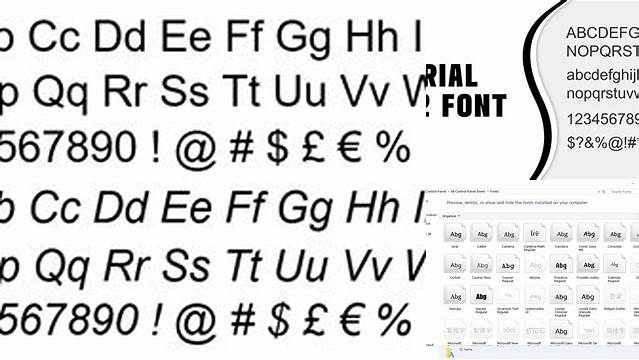
Arial TTF Fonts On Windows: A Complete Guide
Hey guys, ever wondered about the Arial TTF fonts you see on your Windows system? Well, you're in the right place! In this article, we're diving deep into everything Arial, from its origins and technical aspects to how you can manage it on your computer. If you're a designer, a writer, or just someone who enjoys a good-looking document, understanding fonts like Arial is super important. We'll break down what makes Arial tick, how it's used, and some tips and tricks for working with it. Let's get started, shall we?
What is Arial TTF?
So, what exactly is Arial TTF? Arial is a sans-serif typeface, which basically means it doesn't have those little decorative strokes (serifs) at the end of each letter. It's designed to be clean, modern, and easy to read, making it super popular for both digital and print media. The "TTF" part stands for TrueType Font, a type of font format developed by Apple and Microsoft. TrueType fonts are scalable, meaning they can be resized to any size without losing quality. This is a huge advantage, ensuring that Arial TTF looks crisp and clear whether it's tiny text on a website or large headlines in a poster. The font was originally designed by Robin Nicholas and Patricia Saunders and released by Monotype in 1982. Arial was conceived as a commercial alternative to the popular Helvetica font, aiming to provide a similar aesthetic but without the licensing fees. Because of its widespread use, Arial has become a ubiquitous font, you'll find it on pretty much every computer running Windows, making it a go-to choice for many. The design is often praised for its neutrality and readability, and it's a common font choice for body text, headings, and user interfaces alike. In the digital realm, Arial TTF plays a critical role in how we interact with information. It ensures that text is displayed consistently across different devices and operating systems, something that is crucial for web design, document creation, and even software development. With its balanced and unobtrusive design, Arial can be used effectively to highlight content without overshadowing its message. The versatility of Arial extends to its use across a diverse array of mediums, including but not limited to; presentations, brochures, and digital advertisements, making it a solid choice for all types of creative projects. Moreover, Arial TTF is a core component of the Windows operating system, as it is used for rendering the user interface and displaying text in various applications, meaning it is essential to the overall user experience. Its universality helps to create a sense of consistency across different applications, which is essential for ease of use. And with its timeless design and unwavering popularity, it shows no signs of disappearing anytime soon.
- Web Design: In web design, you can specify Arial in your CSS to use it for text on a webpage. You can use the font-family property to declare Arial. For example,
font-family: Arial, sans-serif;This ensures that if Arial isn't available on the user's system, a sans-serif font is used as a fallback. This is important to ensure that your website looks good on all devices. The font family gives web designers a great amount of control over typography.
No matter the application, you just need to find the font selection tool, select Arial, and start typing! Keep in mind that the exact location of the font selection tool may vary slightly depending on the software you're using. Practice makes perfect, so experiment with different styles and sizes to see what works best for your project.
Benefits and Drawbacks of Using Arial TTF
Like any font, Arial TTF has its pros and cons. Here's a rundown to help you decide when to use it and when to look for alternatives:
Benefits:
- Readability: Arial is known for its excellent readability, making it ideal for both print and digital use. Its clear and simple design ensures that text is easy to read, even at smaller sizes. This is a key factor in ensuring that your message is clearly conveyed to the audience.
- Universality: It's a standard font on Windows, which means it's available on nearly every computer. This ensures that your documents will look the same across different systems. This is great for collaborations and sharing documents. Its wide availability makes it a safe and reliable choice for widespread use.
- Versatility: Arial is versatile and can be used in various contexts, from body text to headlines. Its neutral design makes it suitable for a wide range of projects, allowing it to seamlessly integrate into diverse design concepts.
- Familiarity: Most people are already familiar with Arial, making it a safe choice for any kind of content. It is often considered a safe choice because its widespread recognition helps to avoid any confusion among readers.
Drawbacks:
- Lack of Originality: Because it is so commonly used, Arial can appear generic and lack personality. This makes it not the best choice if you are looking for a font that will make your project stand out. In some contexts, using a more unique font might be the better option to capture the audience's attention.
- Comparison to Helvetica: Arial was designed to mimic Helvetica, so it lacks the subtle nuances of the original. For designers and typographers, the differences can be noticeable, and Helvetica might be a better choice if you are looking for the original. Although they may seem similar at first glance, true font enthusiasts can easily recognize these subtle distinctions, making a difference in certain design projects.
- Overuse: Overusing Arial can lead to a boring look, so it's important to use it judiciously. If you're aiming for a design that pops, using Arial might not be the best option, especially if you're seeking to create something distinctive.
Tips for Working with Arial TTF
Here are a few tips to get the most out of Arial TTF:
- Pairing: Pair Arial with other fonts to create a balanced design. Consider using a different font for headlines to add contrast. Make sure the font pairing complements the overall look of the project. Experimenting with different font combinations can make your design more dynamic and appealing.
- Size and Weight: Adjust the size and weight of Arial to enhance readability. Use bold or larger sizes for headings and keep body text at a comfortable reading size. Varying the font size and weight can create visual hierarchy. Knowing how to combine different font attributes will improve the overall look and feel of the design.
- Color and Background: Pay attention to the color of the text and the background. Ensure there is enough contrast for easy reading. Using the right colors is crucial to readability. A good contrast will make your text stand out on any background, which is essential for good design.
- Spacing: Adjust the line height and letter spacing to improve readability. Make sure the spacing is correct, so that it is easy for people to read the text. Proper spacing will make your text easier to read and more visually appealing.
So, there you have it, a comprehensive guide to Arial TTF! From its origins and technical aspects to how to use it in your applications and tips for getting the most out of it, you now have a good grasp of this popular font. Whether you're creating documents, designing websites, or just curious about fonts, understanding Arial is a valuable skill. Keep experimenting with different styles, sizes, and combinations to discover what works best for you. Happy designing, everyone!